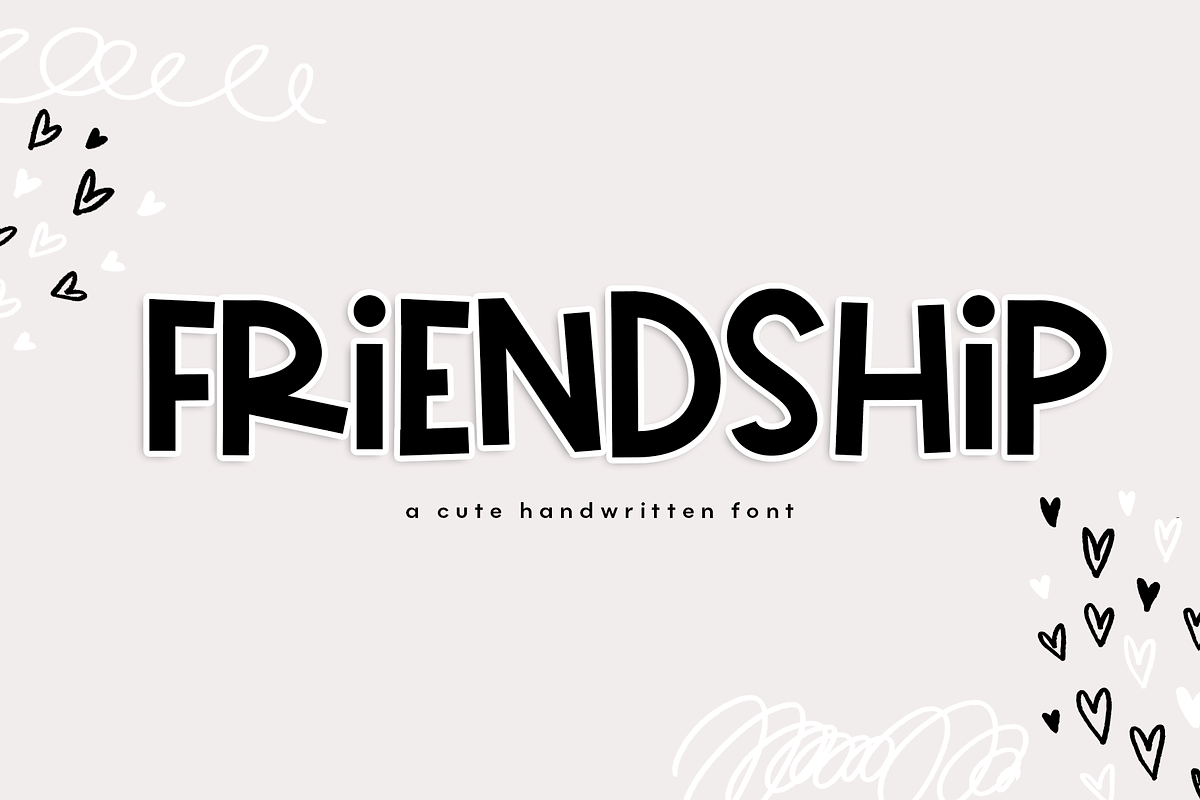
Friendship - A Cute Handwritten Font Free Download
Friendship Font Free Download is a cute and cheerful handwritten typeface designed to bring warmth, personality, and charm to your designs. With its playful curves and casual flow, Friendship is perfect for greeting cards, children’s projects, social media posts, product packaging, and any design that needs a sweet, friendly touch.
Crafted to feel like natural handwriting, this font includes uppercase and lowercase letters, numerals, punctuation, and delightful little quirks that add character to every word. It’s ideal for anything heartfelt, fun, and inviting.
Whether you're designing for a kids’ brand, a personal project, or a cute lifestyle product, Friendship Font Free Download will brighten up your typography with joy and approachability. Try it out in personal or demo use, and don’t forget to purchase the proper license for any commercial work. Share some smiles in your designs with this adorable handwritten font.